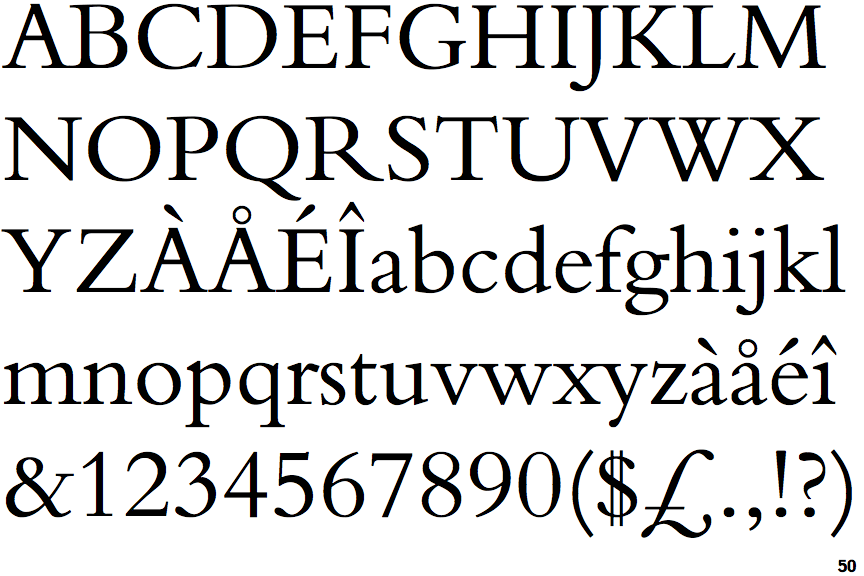
Fonts Bembo
Now, monotype announces a new, meticulously rendered revival called bembo book, specifically designed to capture the grace of the or Bembo was modeled on typefaces cut by francesco griffo for aldus manutius’ printing of de aetna in 1495 in venice, a book by classicist pietro bembo about his visit to mount etna. Bembo is free for personal use only.
Font publish year is 1992. The font was designed by an italian designer, francesco griffo and giovanni antonio tagliente. November 8, 2021 by eduard hoffmann.